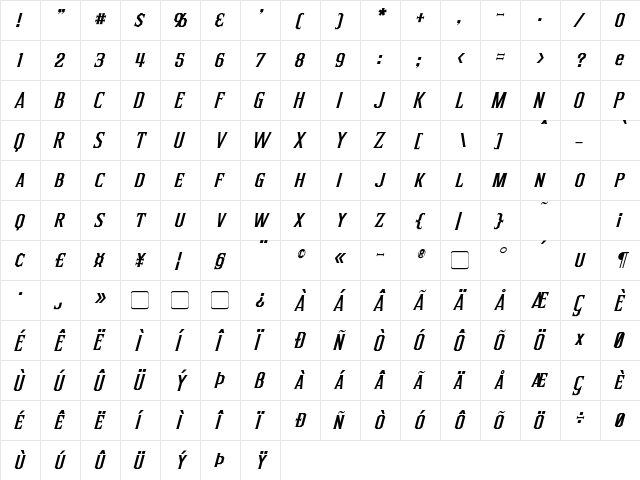
Inquisitor Italic Font Preview
Inquisitor Italic
Inquisitor Italic Font Details
| Foundry | Pixel Sagas |
| Designer | Neale Davidson |
Design Context for Inquisitor Typeface
Inquisitor takes a measured approach to typography — its balanced proportions and neutral character make it a reliable workhorse for both digital and print work. Its italic angle brings a sense of urgency and motion to the letterforms.
Pro Tip: Use Inquisitor for emphasis, pull quotes, and subheadings where its slanted energy can add rhythm to the layout.